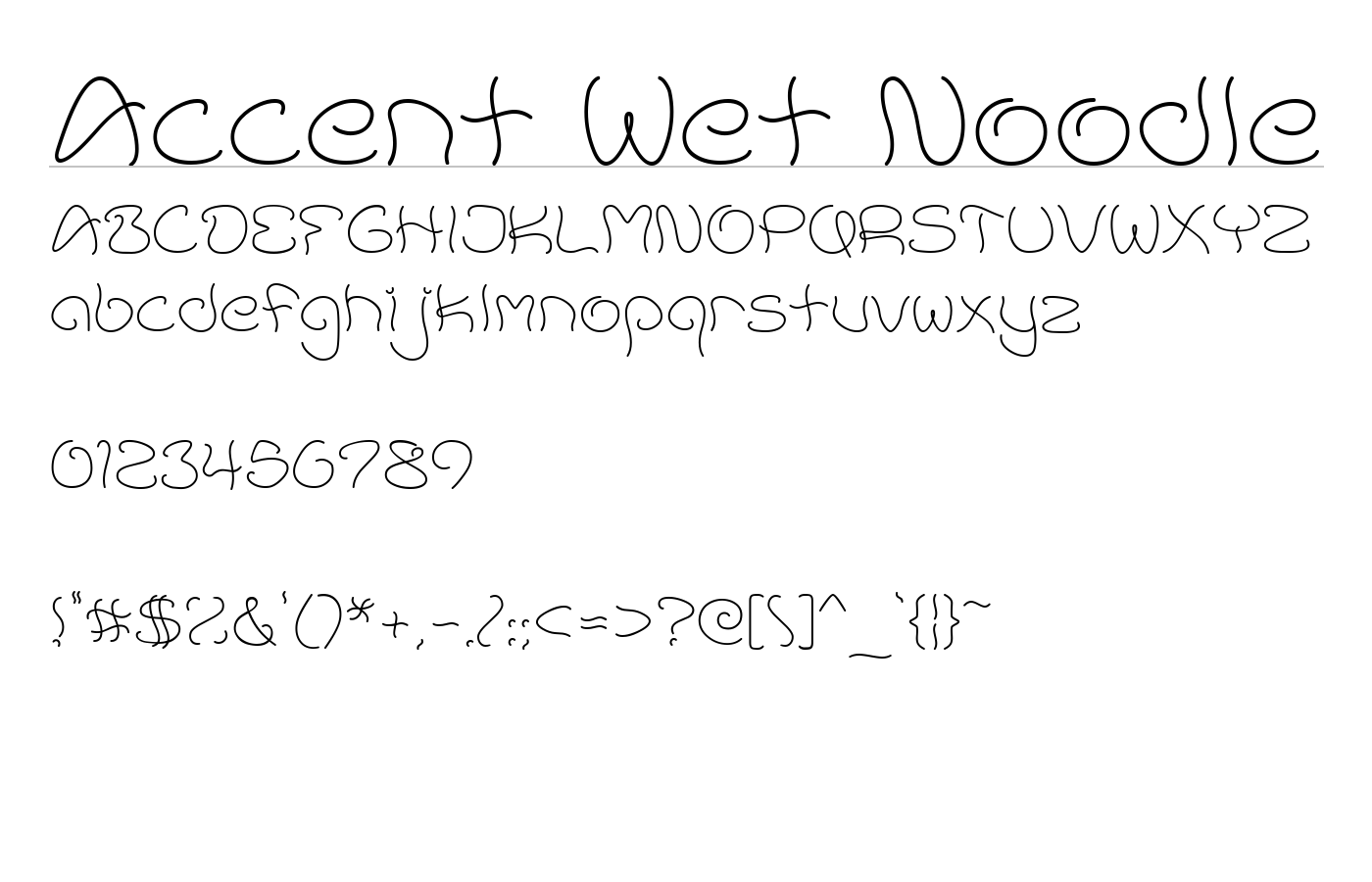
Accent Wet Noodle is a delicate, playful handwritten font characterized by its thin, fluid lines that resemble gently twisted noodles. Its whimsical, airy letterforms with consistent light strokes create a casual and approachable feel, making it ideal for creative projects, informal branding, or any design seeking a quirky, friendly touch. This font works well in invitations, children’s materials, and artistic designs where a unique, hand-drawn style adds charm and personality.
Accent Wet Noodle Font